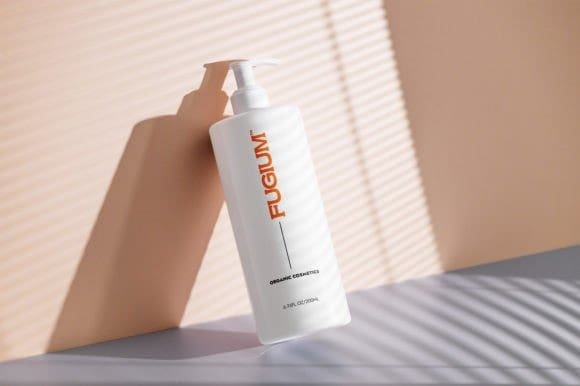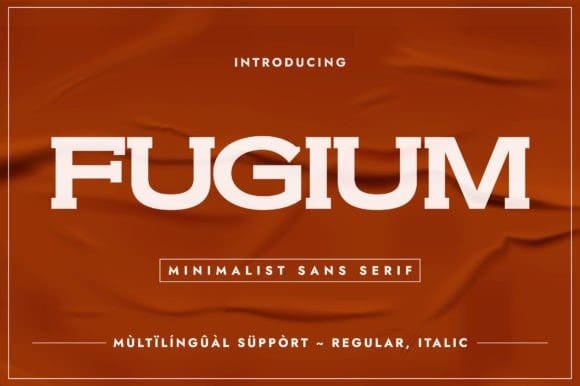
FUGIUM FONT
Fugium Font is an elegant, clean, and wide slab serif font that will grab your viewers’ attention. It is suitable for packaging, perfume bottles, cosmetics, book covers, and many more.